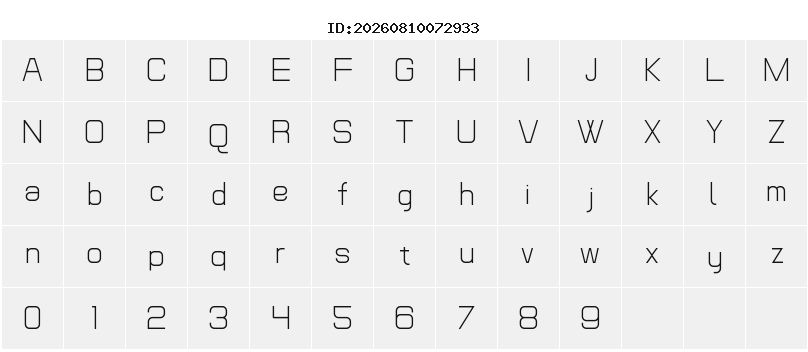
• Font Name: POE Text
• Full Font Name: POE Text
• Version: Version 1.00 November 10, 2015, initial release
• Designer: Daniel Lyons
• Manufacturer: Powerhouse of Entertainment
• Description: A bespoke typeface for The Powerhouse of Entertainment
About POE Text.ttf
POE Text.ttf is a modern, elegant sans-serif font designed for ultimate readability and visual harmony. Perfect for branding, headlines, web design, and print materials.